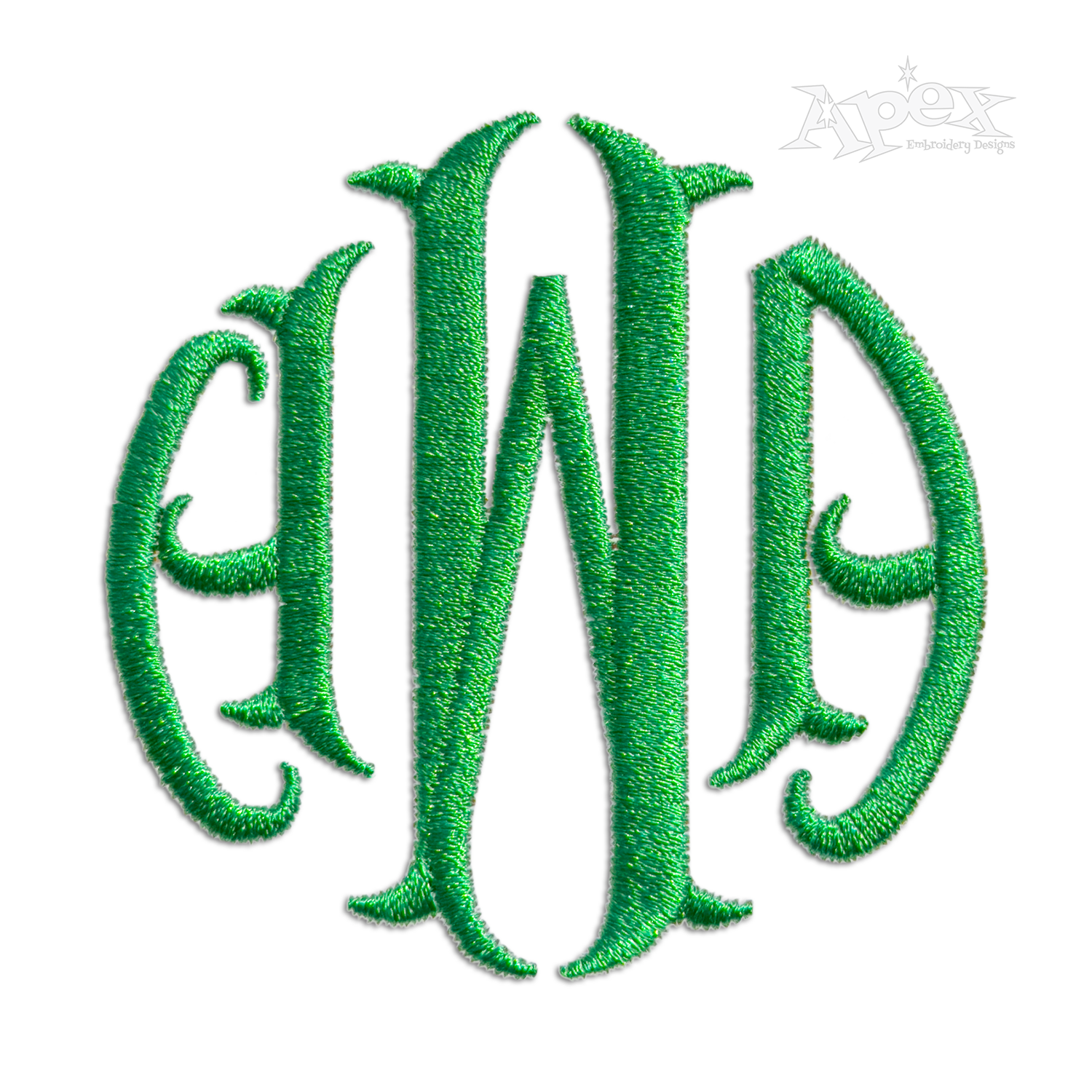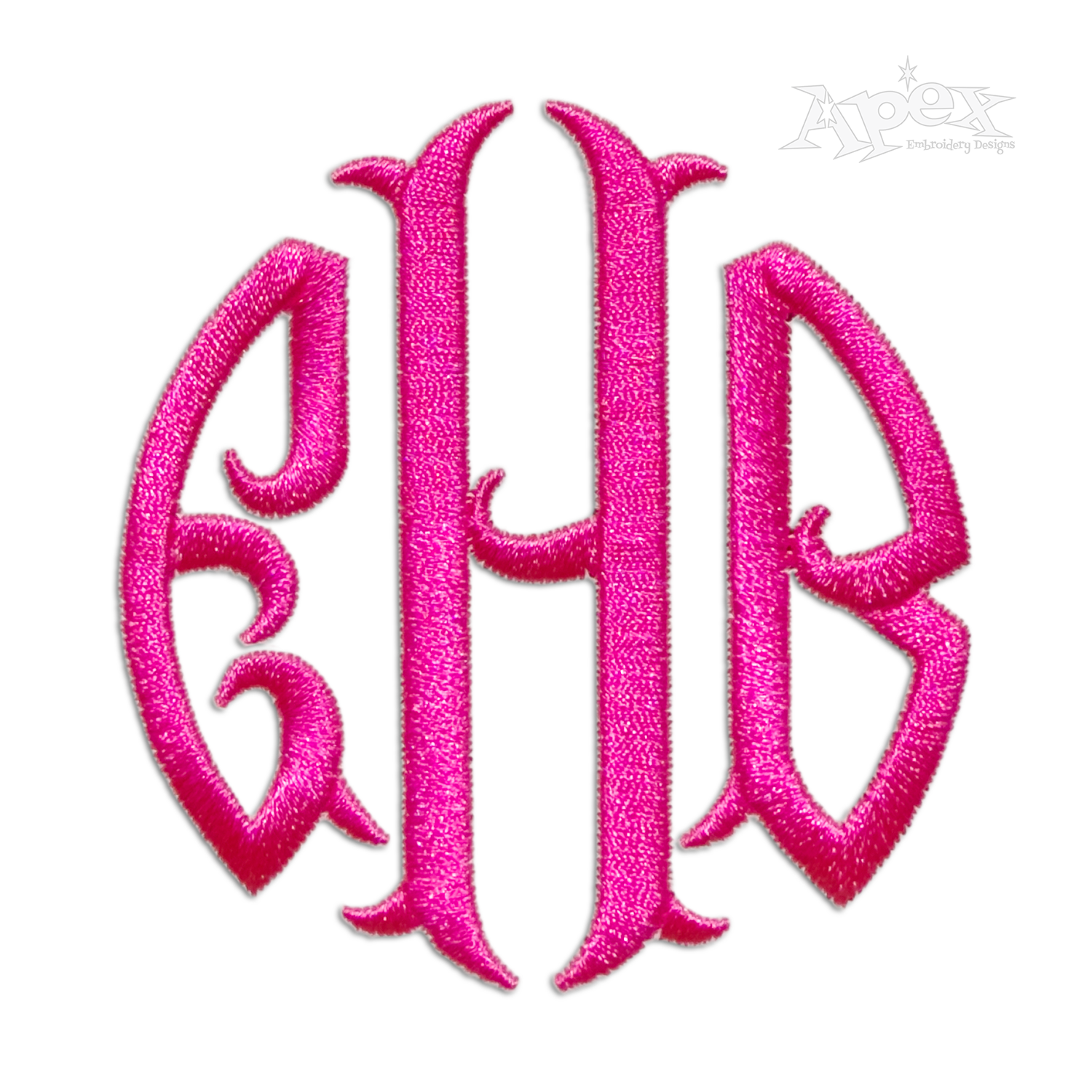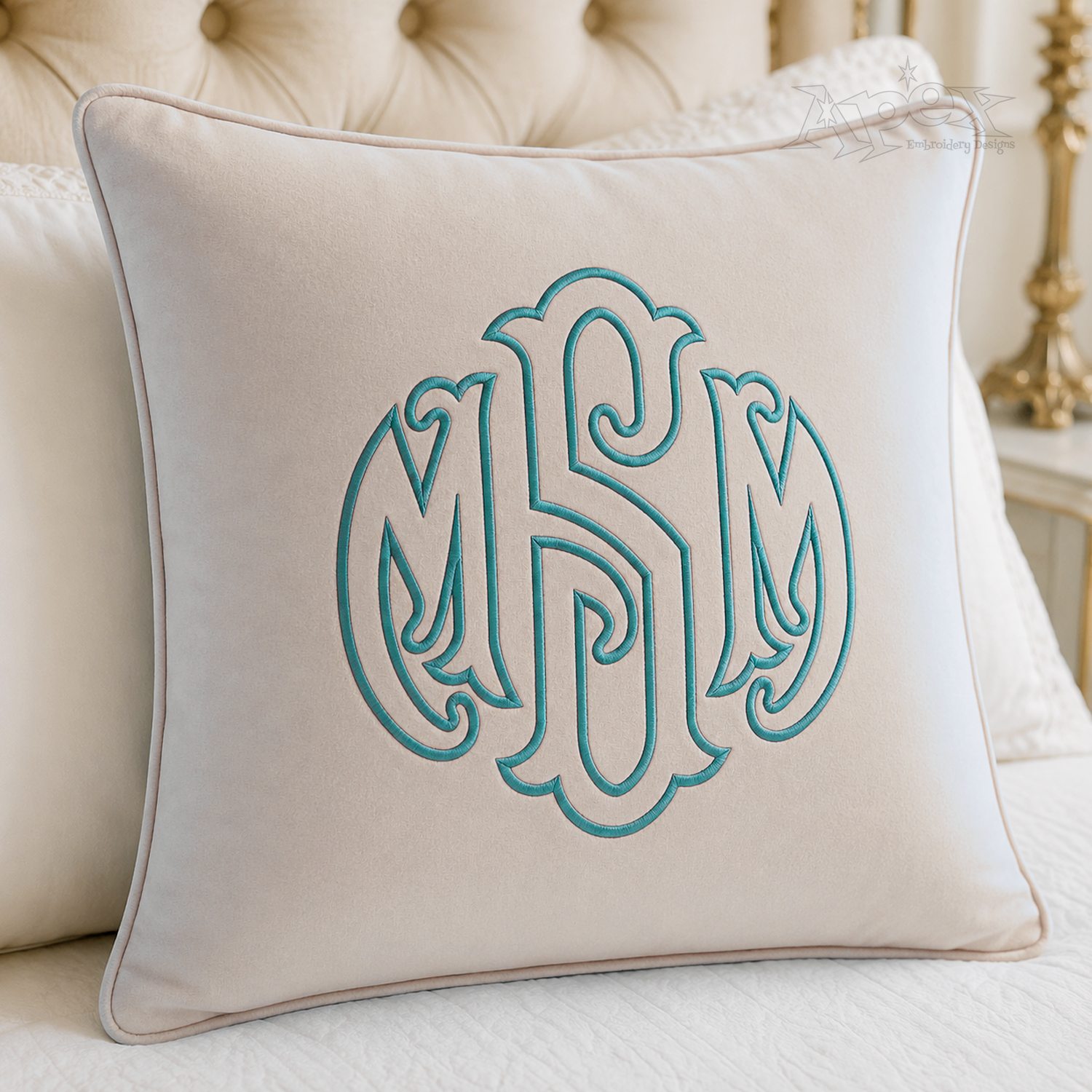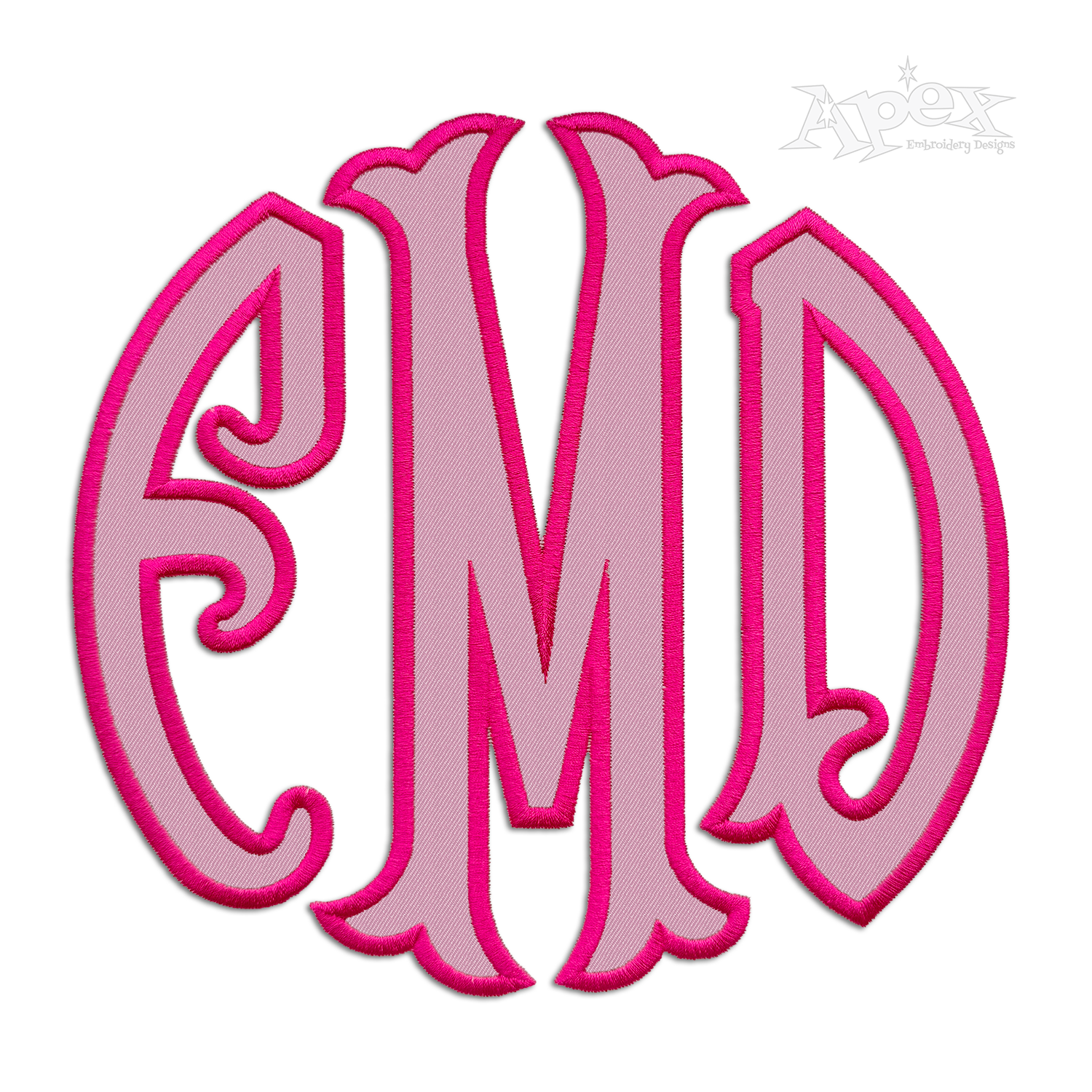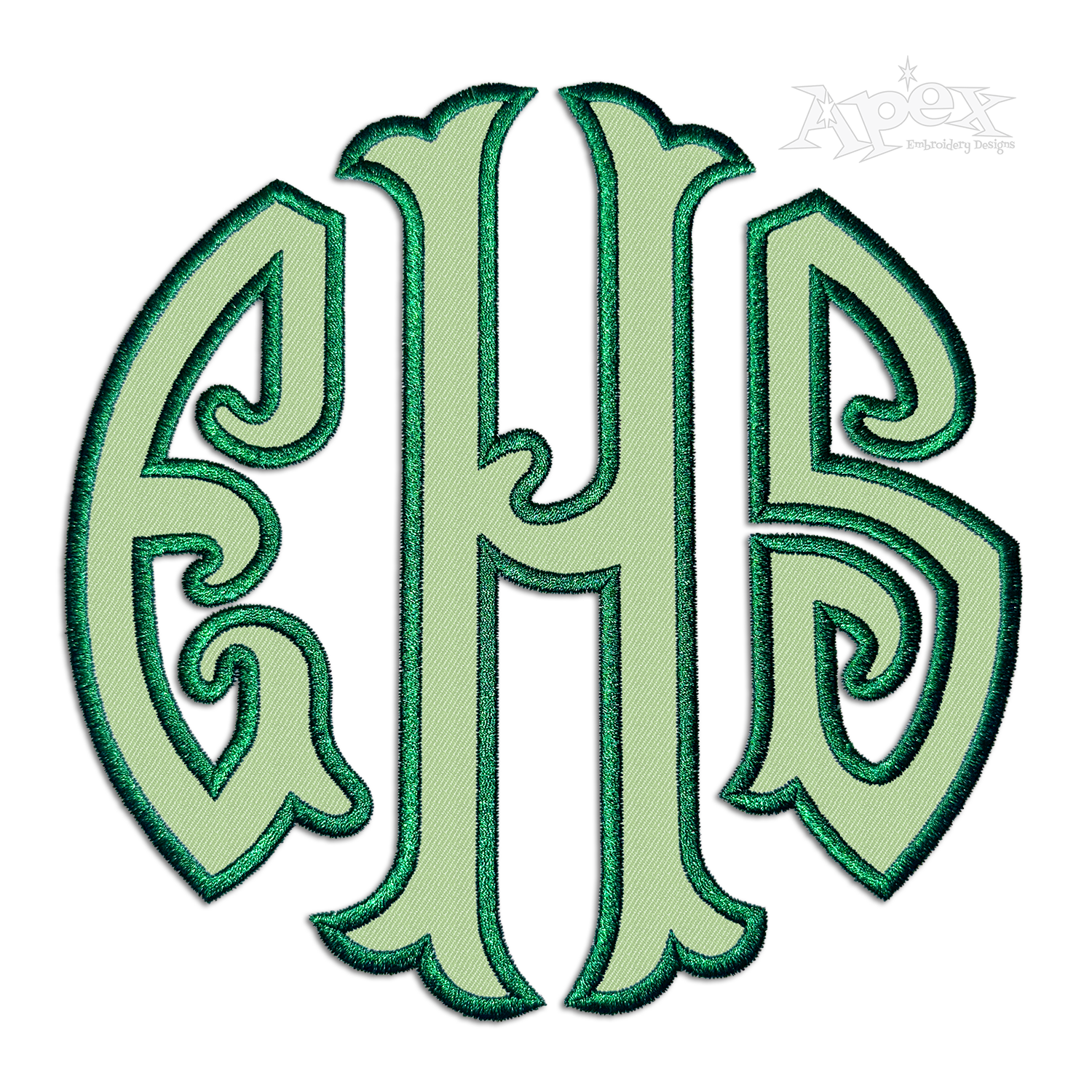
Round Circle Fishtail Monogram Embroidery Font
When digitizing a circle monogram, there is an unmatched satisfaction in witnessing flared fishtail terminals seamlessly curve into an unbroken, harmonious circular silhouette. The Round Circle Fishtail Monogram was born from an admiration for vintage stationery and timeless coastal estate monograms, reimagined with precision for modern machine embroidery. Each initial is thoughtfully sculpted so the side letters frame the commanding center initial in a balanced medallion, creating a finished emblem that exudes heritage, symmetry, and bespoke refinement across every woven fiber.
This masterfully digitized monogram collection is divided into three distinct stitching styles to effortlessly accommodate projects from delicate linens to showstopping oversized statement pieces:
Project Ideas for Round Circle Fishtail Monogram
The structured circular frame and expressive flourishes of this design make it an exceptionally versatile choice for personalized gifting and bespoke home accents:
- Luxury Table Linens: Elevate hemstitch dinner napkins and linen cocktail sets with a crisp 2-inch or 3-inch satin medallion in tonal silk or neutral thread.
- Bespoke Resort Wear: Embroider the center chest of terry cloth robes, linen tunics, or sun hats for an effortless, high-end vacation aesthetic.
- Heirloom Bedding: Create a focal point in master suites by stitching a generous 8-inch or 10-inch monogram onto Euro shams, duvet covers, or decorative boudoir pillows.
- Heavyweight Canvas Totes: Add timeless character to weekend bags, tennis totes, and market carryalls using the structured fill or bold appliqué scales.
- Bridal & Monogrammed Gifting: Personalize keepsake bridal shawls, cosmetic travel cases, and anniversary throws with initials celebrating a newly shared surname.
Achieving a balanced presentation relies on aligning the distinct geometry of the circular fishtail frame with your fabric's natural proportions:
- Napkin Corner Diagonal: Position 1.5 to 2 inches from the hemmed tip along a 45-degree diagonal line, allowing the monogram to drape beautifully when folded or set flat.
- Bedding Centerpiece: Center directly on pillow shams or the top third of a flat sheet folded back over a coverlet, giving the circular boundary room to breathe.
- Apparel & Tote Fronts: Align 7 to 9 inches down from the shoulder seam for apparel chests, or position directly between the webbing straps on canvas totes for classic balance.
- Cuffs and Hem Details: Use the 2-inch satin execution positioned subtly on pajama cuffs or above garment hemlines for an understated, bespoke monogramming accent.
Round Circle Fishtail Monogram Craft & Letterform Details
Digitizing a circular monogram requires intense geometric calibration; an embroidery needle pushes and pulls fabric differently along tight curves than it does along straight lines. We hand-tuned every arc of the Round Circle Fishtail Monogram to counteract thread distortion, ensuring that when the outer letters curve to complete the circle, the overall shape remains optically true and beautifully circular on the fabric.
The signature fishtail terminals flare outward with graceful concave cuts, adding movement and vintage character to what would otherwise be a rigid circle. In the satin-stitch iterations, stitch angles dynamically follow the natural contour of each stroke, catching natural light across the thread to yield a brilliant, jewel-like sheen. In the larger fill and appliqué sizes, underlay density and edge finishing have been methodically mapped to guarantee smooth borders, preventing fraying while preserving the crisp, sharp corners that define authentic fishtail typography.